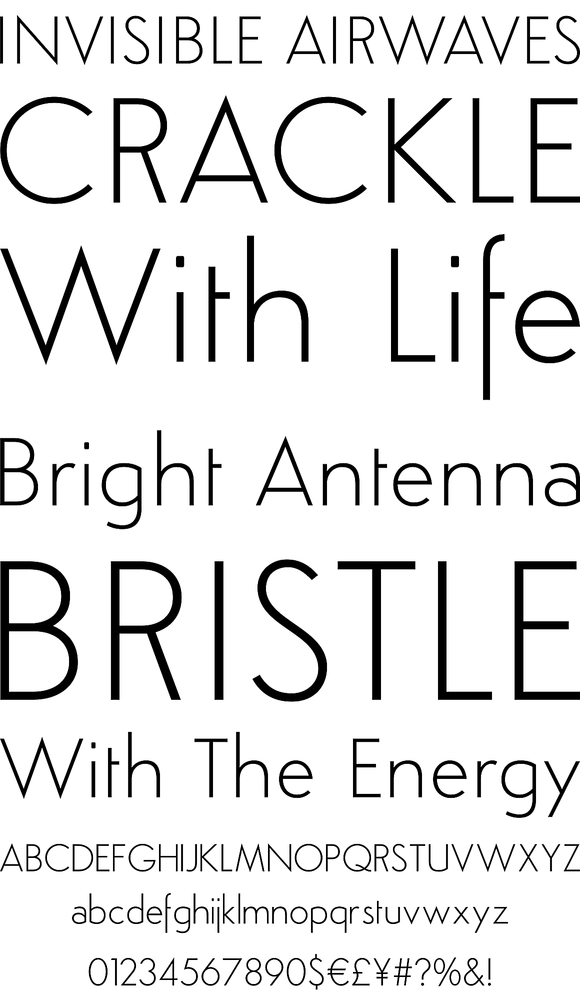
Simplo: the 'Italian Futura'.
Simplo is a geometric sans serif typeface, built in sixteen styles. It is a tribute to the 1930s typeface Semplicità, designed by Nebiolo's Alessandro Butti. Although many details of Simplo differ from Semplicità, it preserves the spirit of the original.
Simplo is ideal for use in display sizes. It is also quite legible in text, and is well suited for graphic design and corporate identity design. Simplo has sixteen styles, extensive language support, eight different kinds of figures, sophisticated OpenType features — so it's ready for advanced typographic projects.
The most notable characteristics of this typeface are the t and the f. The t is the culmination of simplicity: a vertical line with just a simple right-side crossbar. The f also has just a right-side crossbar, and is really tall: it reaches both the highest and lowest vertical position of the typeface. The top of the distinctive s, is much narrower than its bottom. The a, b, d, g, p, q, and u are spurless, and show a family resemblance with Hans Reichel's 1990s typeface Dax. However, these letters are rounder and more geometric than Dax's counterparts, because of Dax's higher x-height and narrower design. In Paul Shaw's Imprint article about typefaces that have been overlooked and/or underappreciated, "Overlooked Typefaces", he concluded his discussion of Semplicità as follows: "These idiosyncrasies suggest that Semplicità might find a warm reception today, given the current love affair with Gotham, Neutraface and Proxima—and the resurgence of ITC Avant-Garde Gothic."
Designed by Ben Blom in 2011. (Original design by Alessandro Butti.)